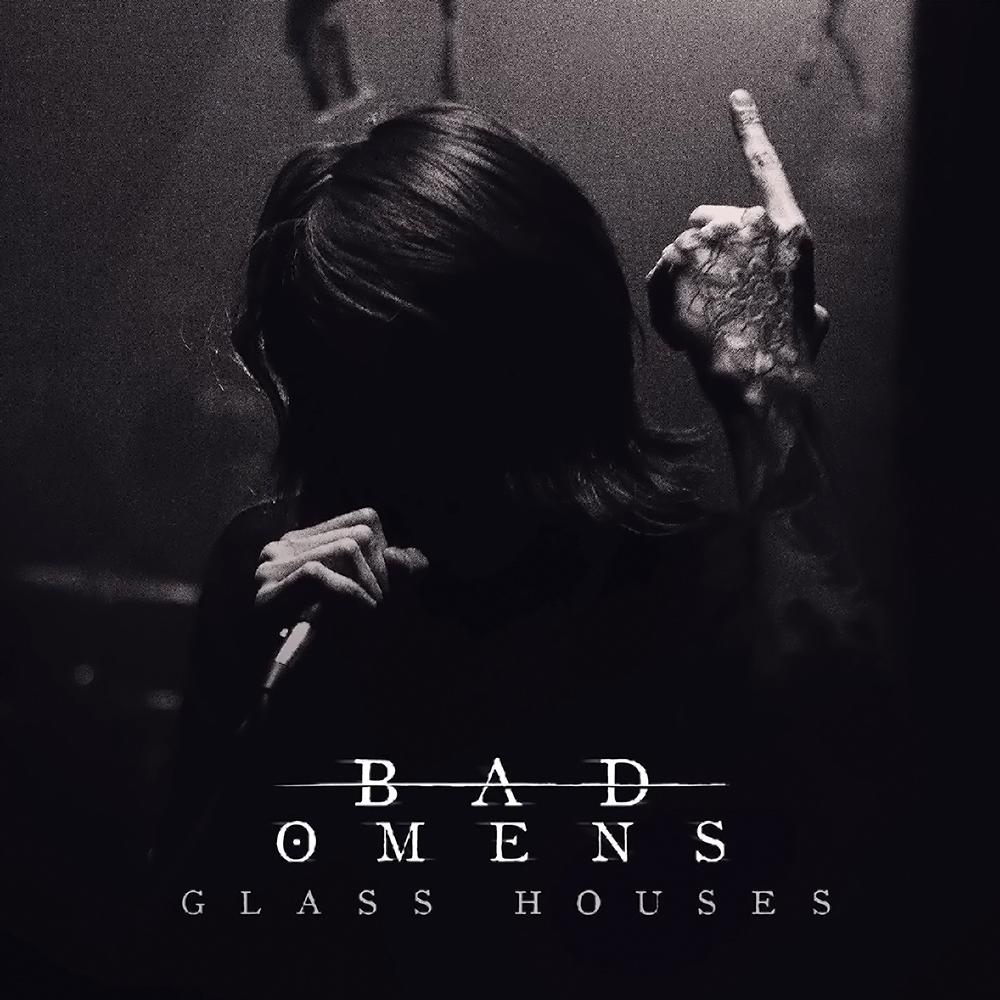
Bad Omens Font
BandBad Omens is an American metalcore band formed in 2015. "Glass Houses" is a single released in 2019 that features a blend of heavy guitars, driving rhythms, and emotional vocals to create a powerful and anthemic track.
Coldstyle was the font of choice for the cover art text, designed by Andrew Leman and inspired by the 1935 Linotype catalog's "Old Style 1" font. The font's serif was intentionally given a slight aging effect to simulate the look and feel of the old metal type.